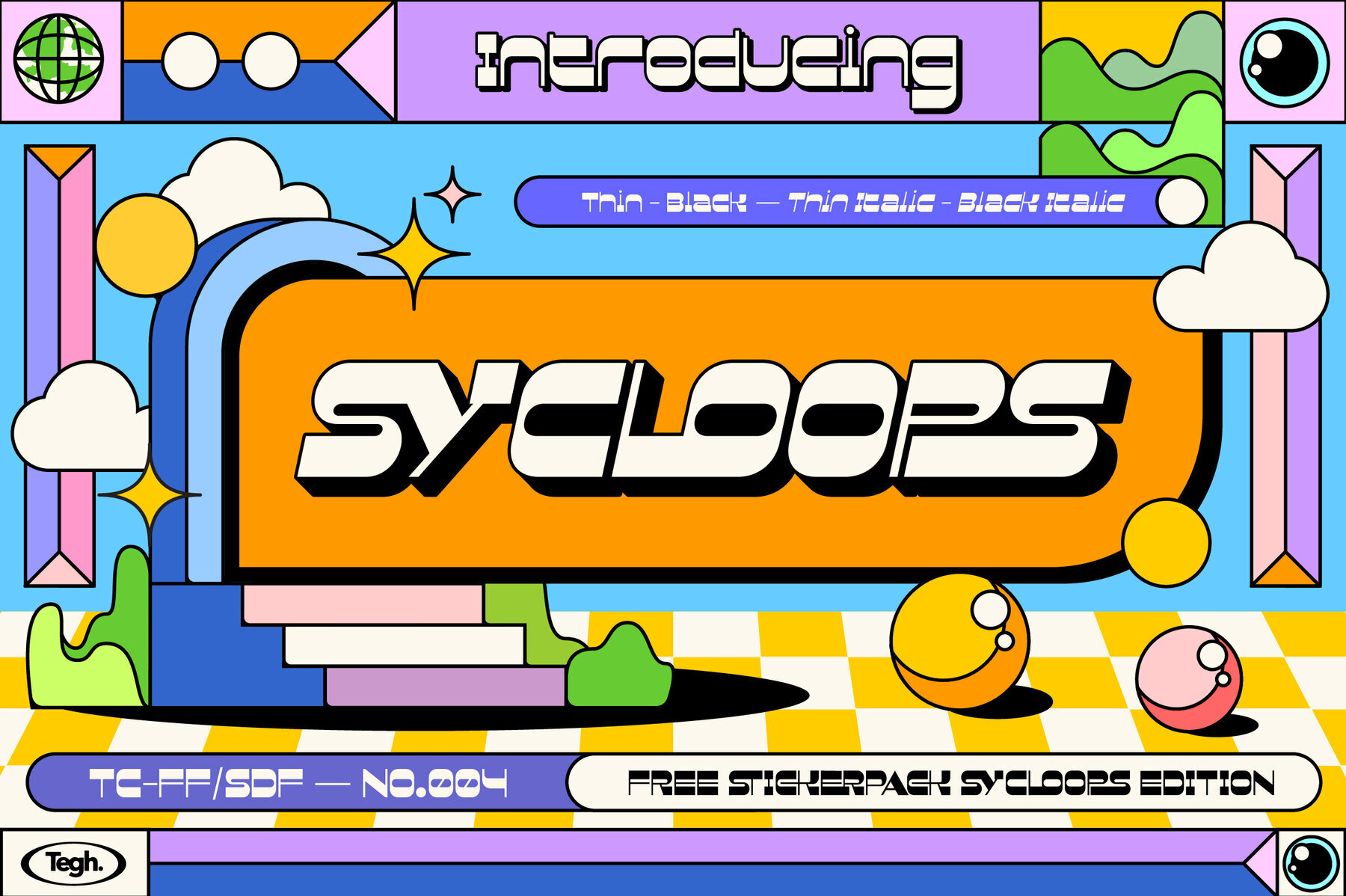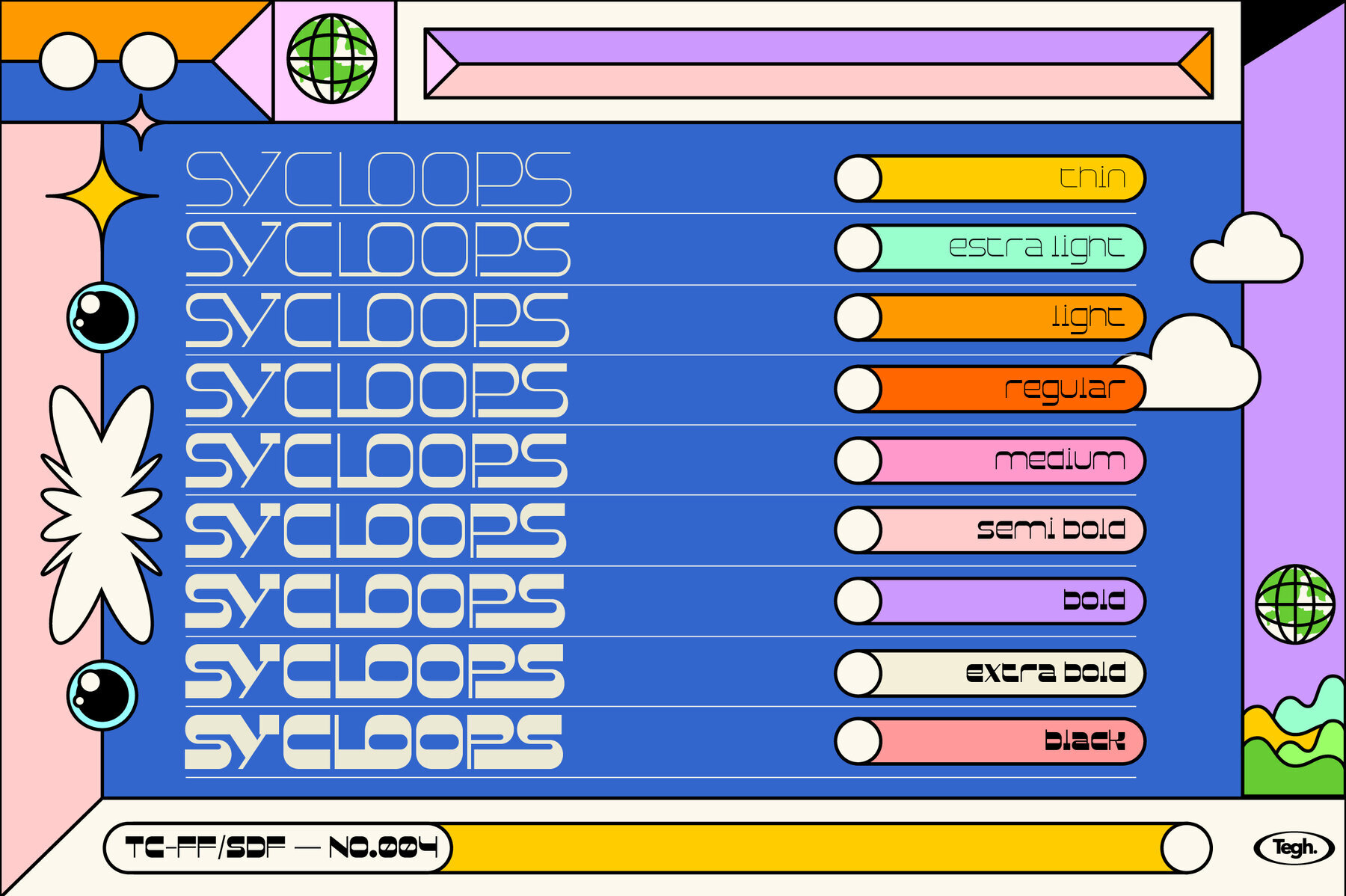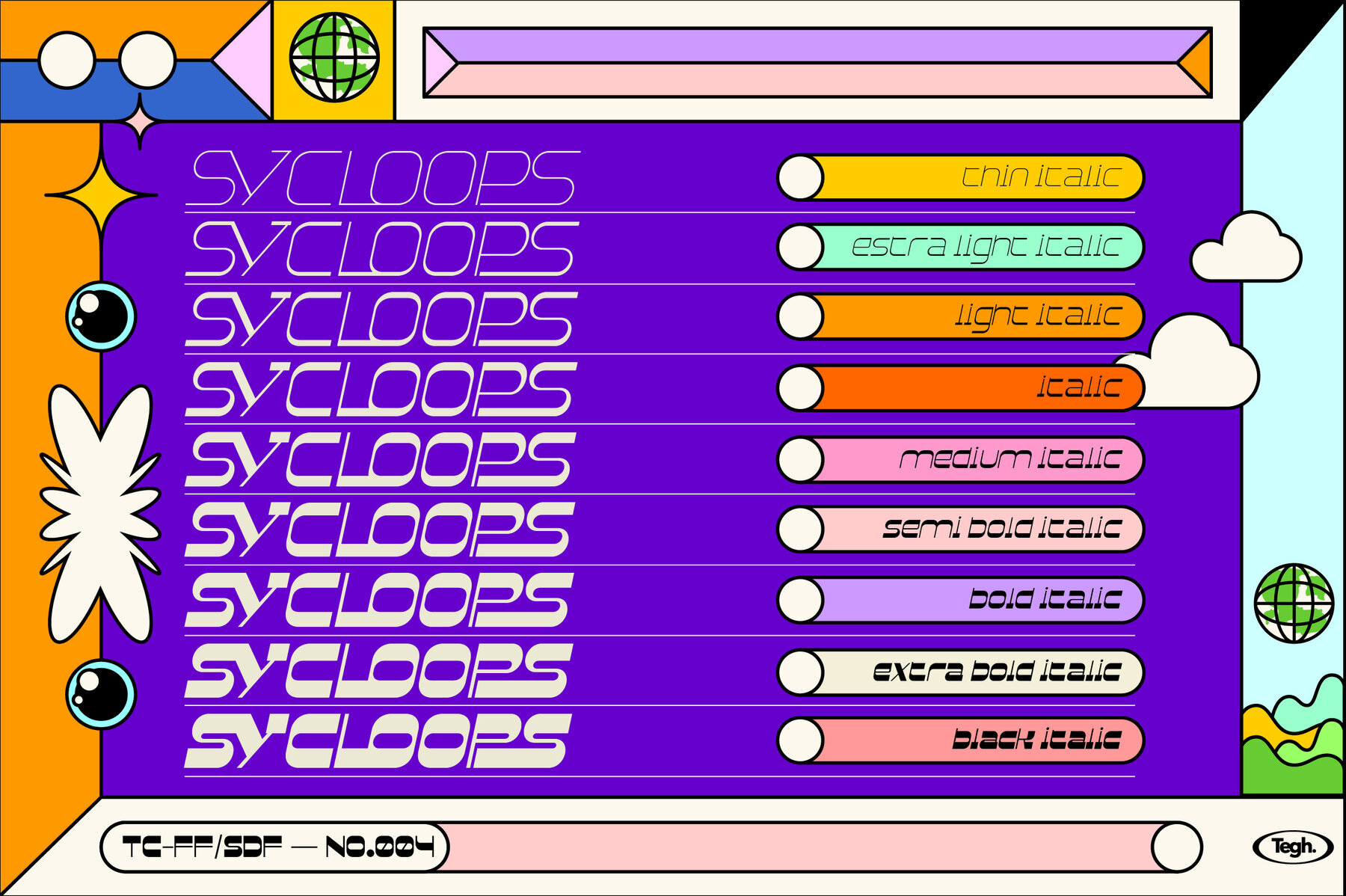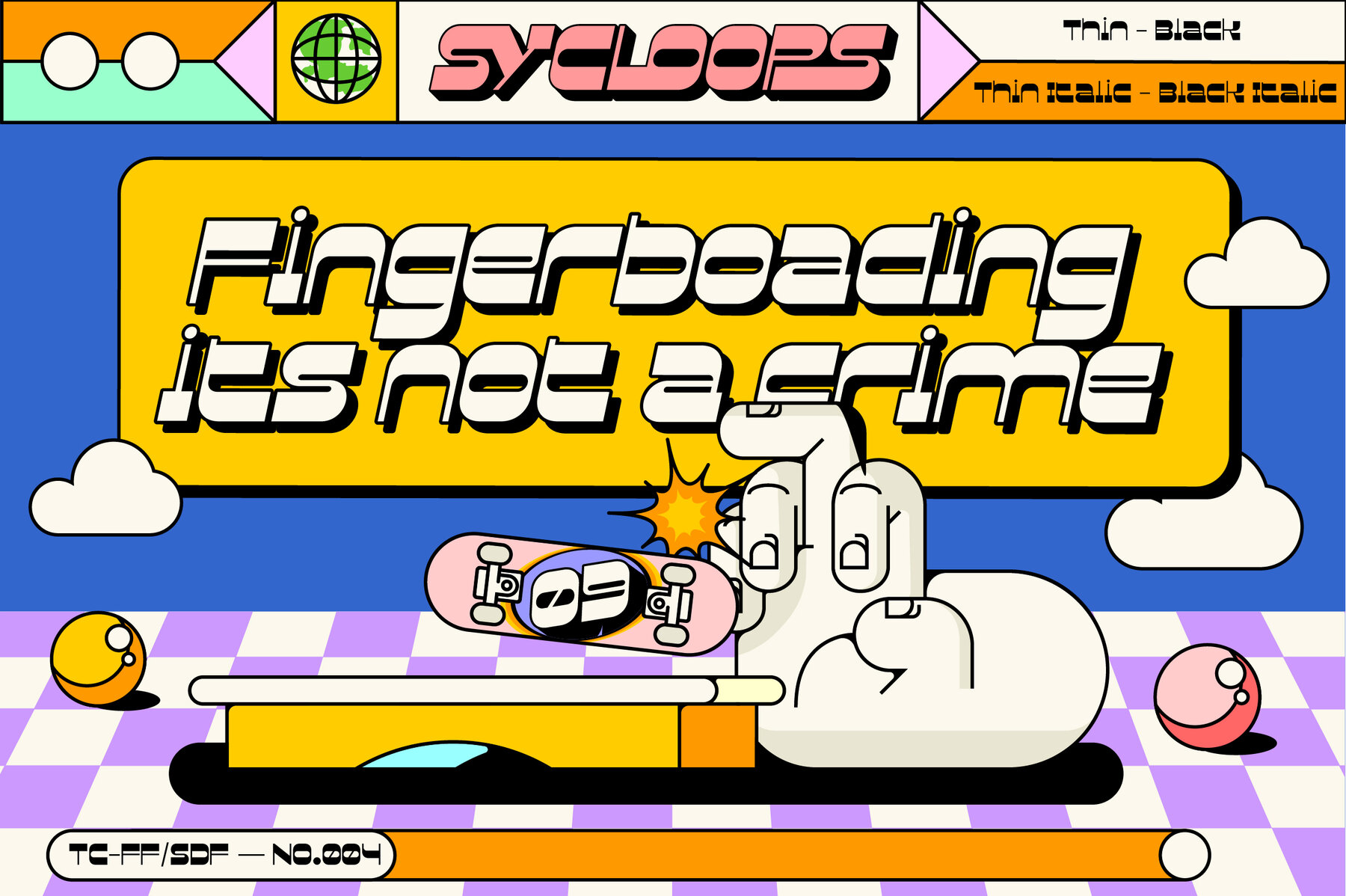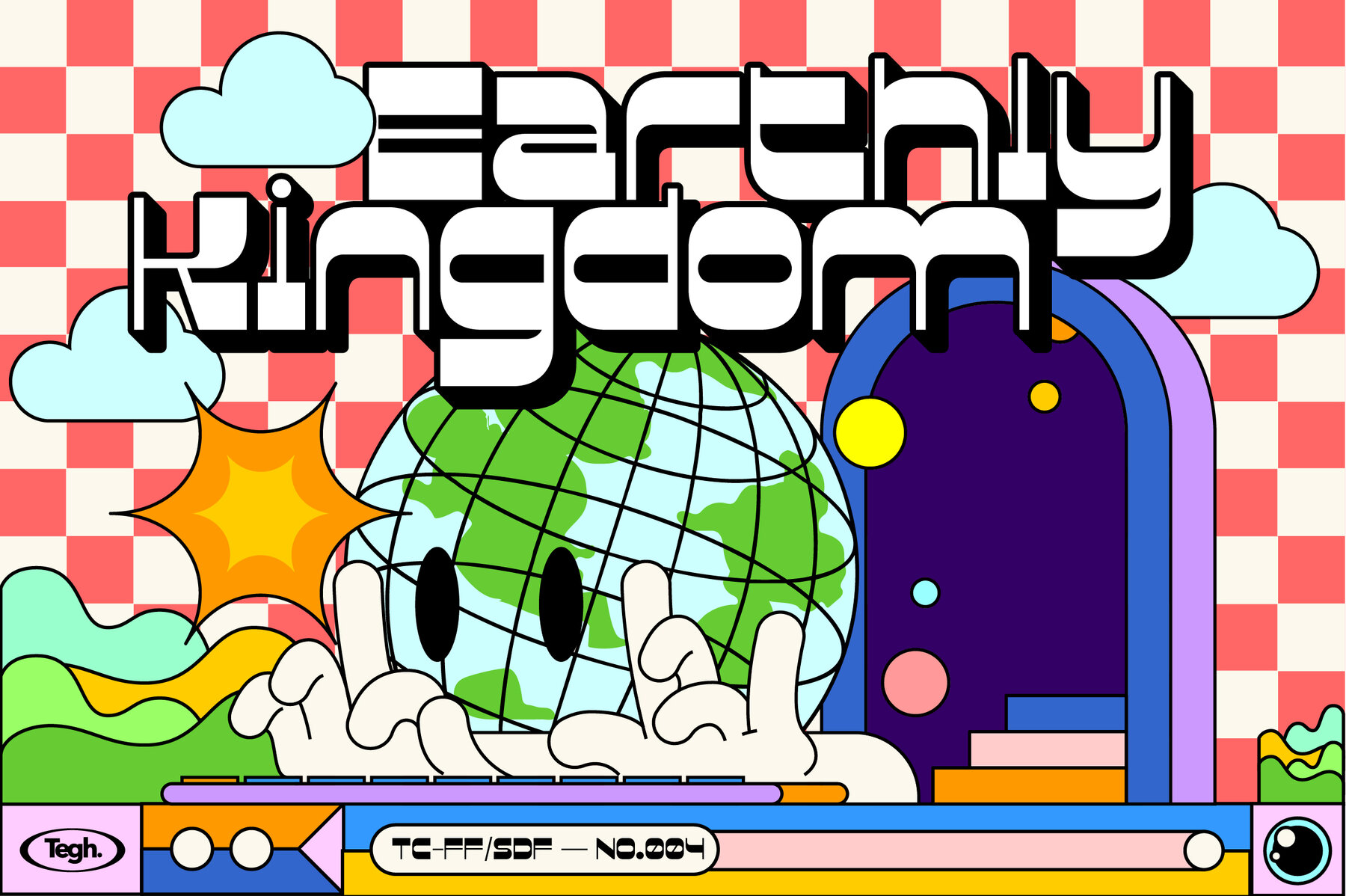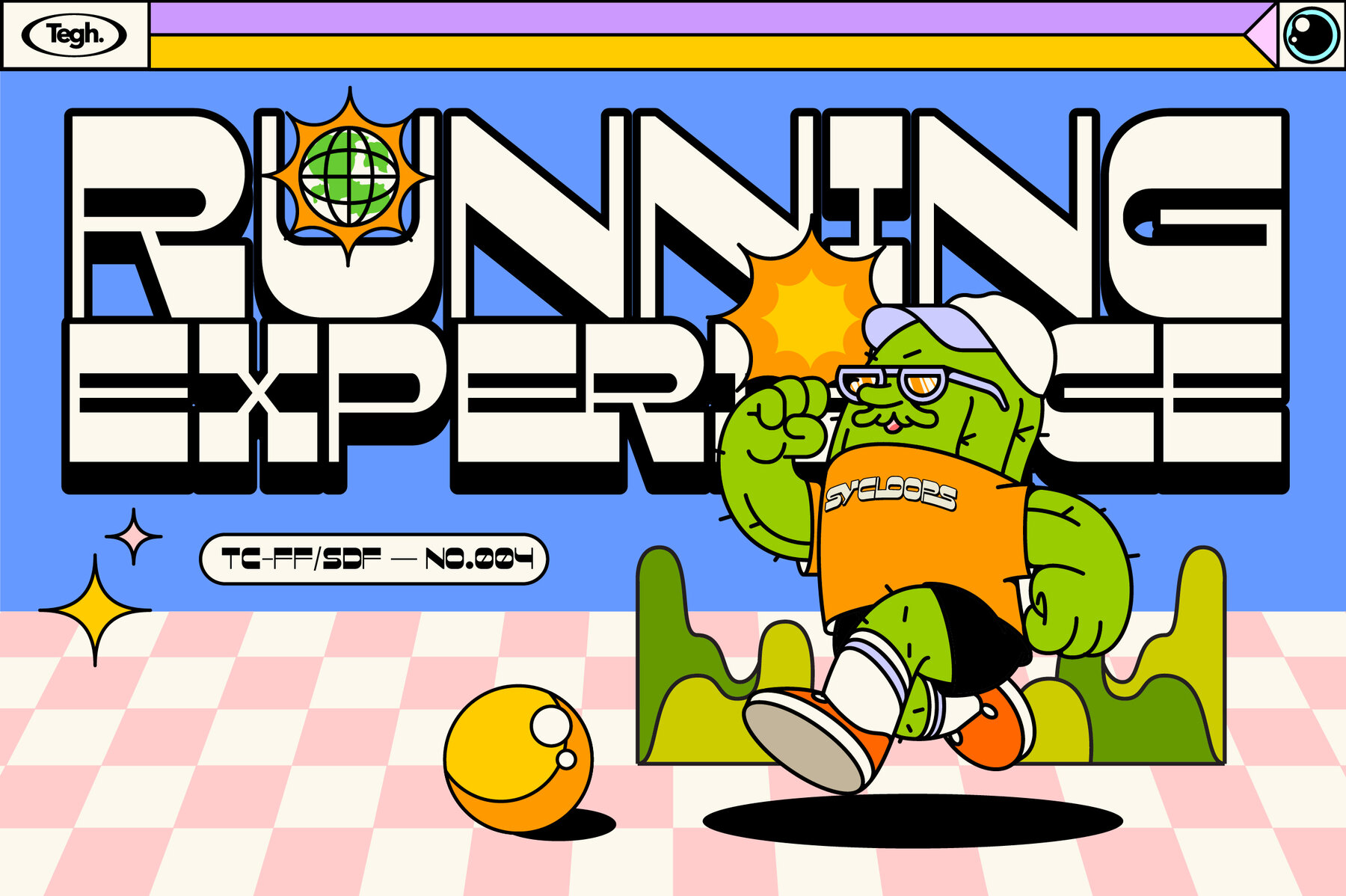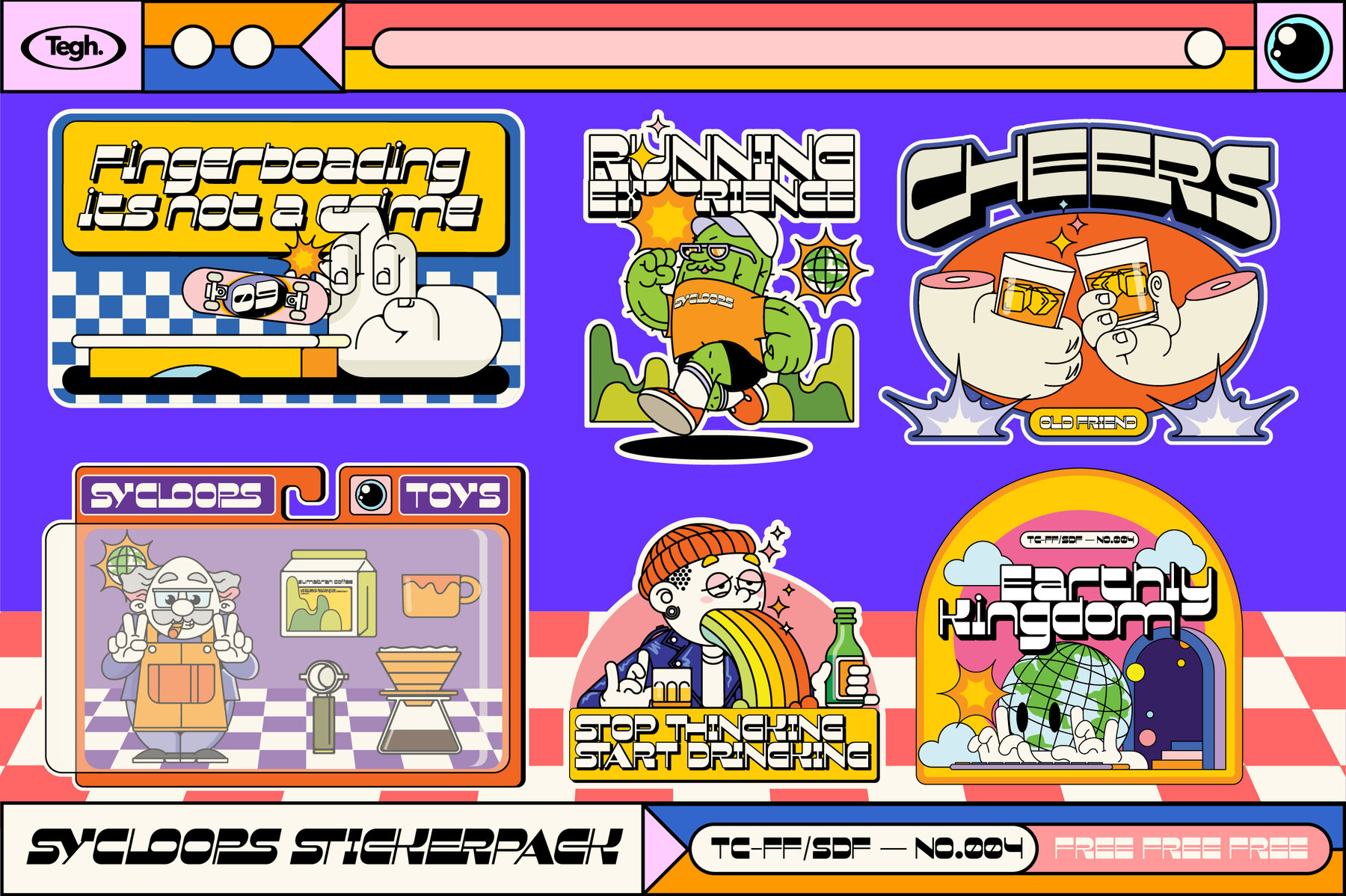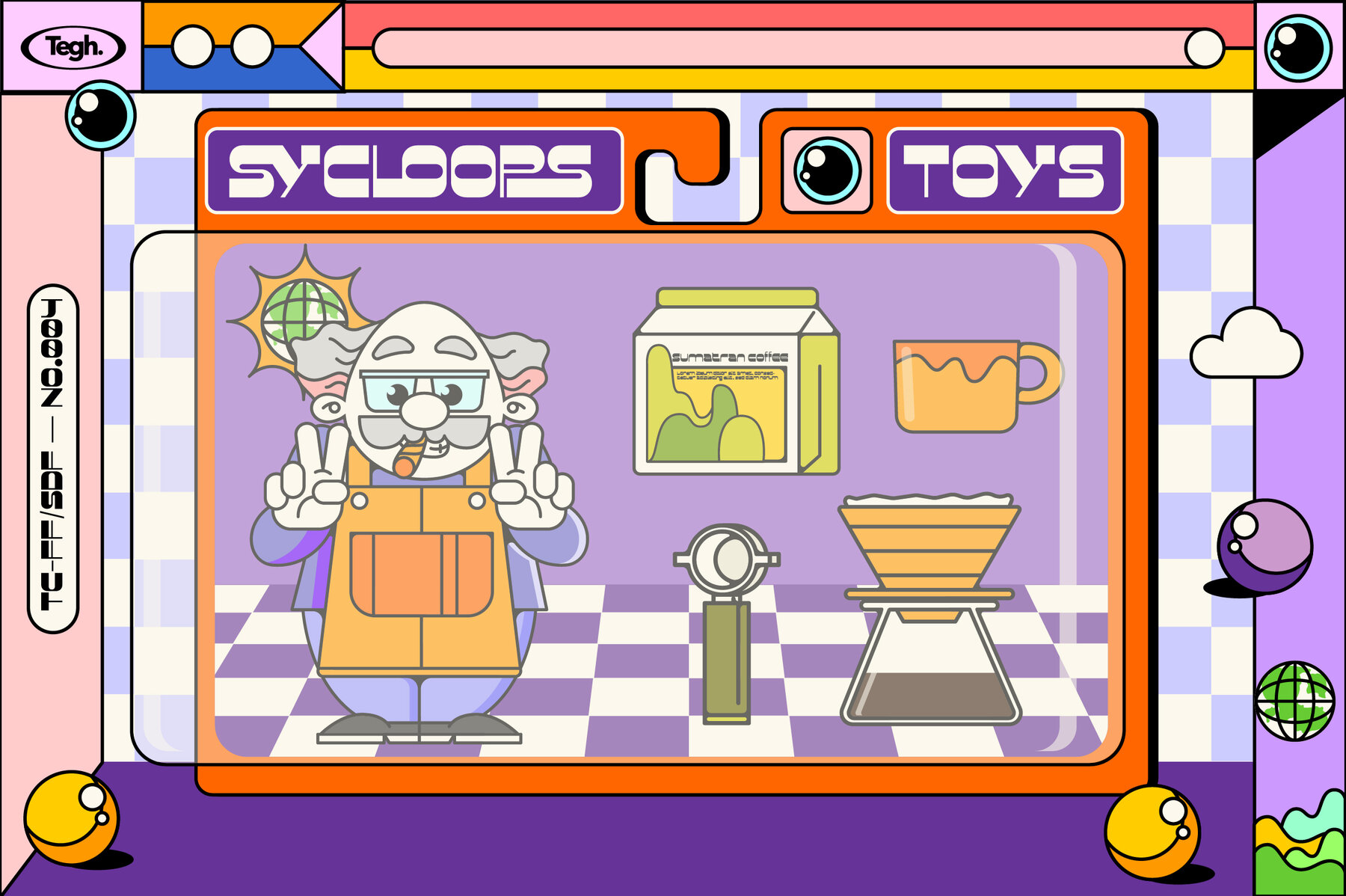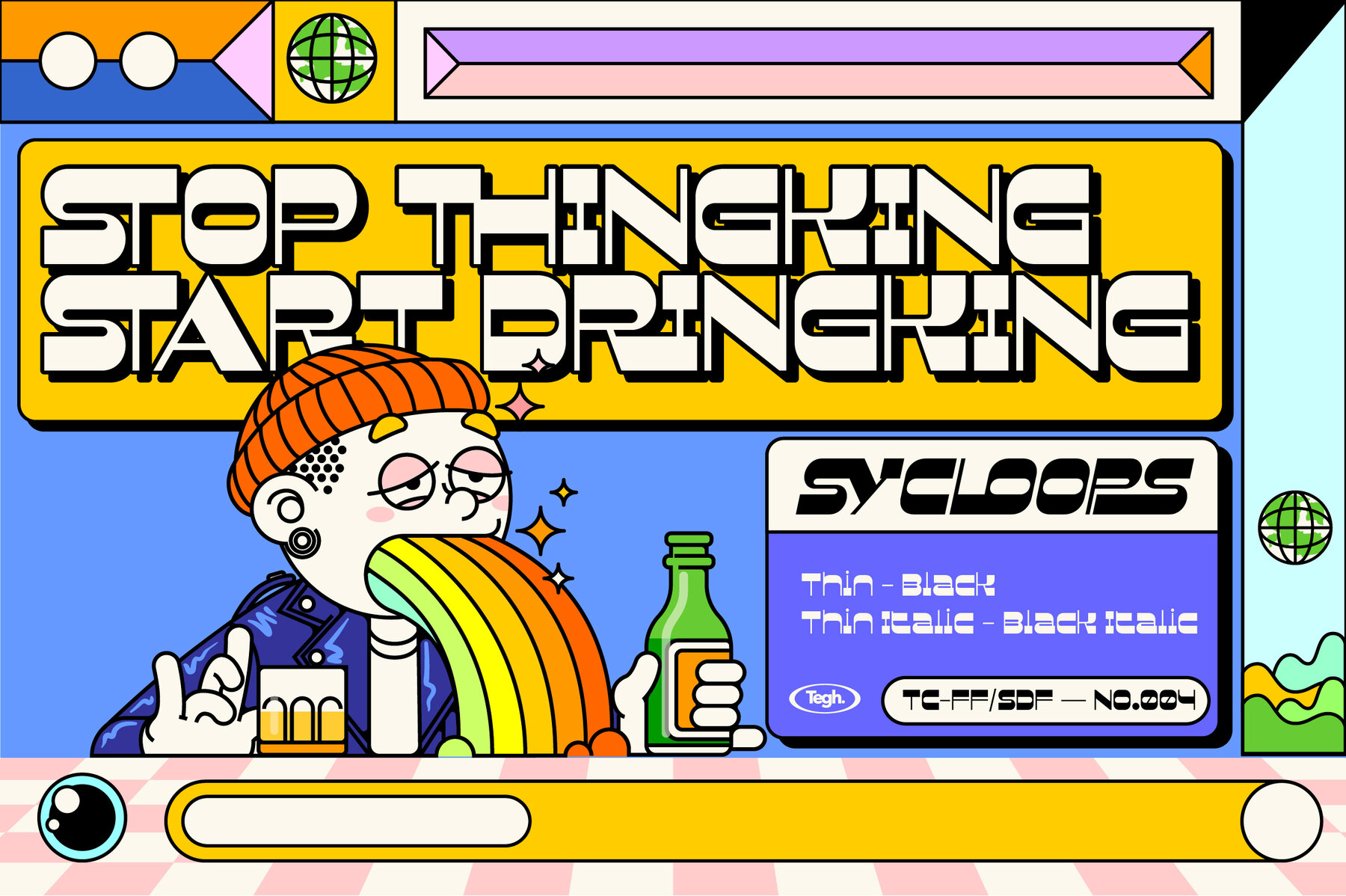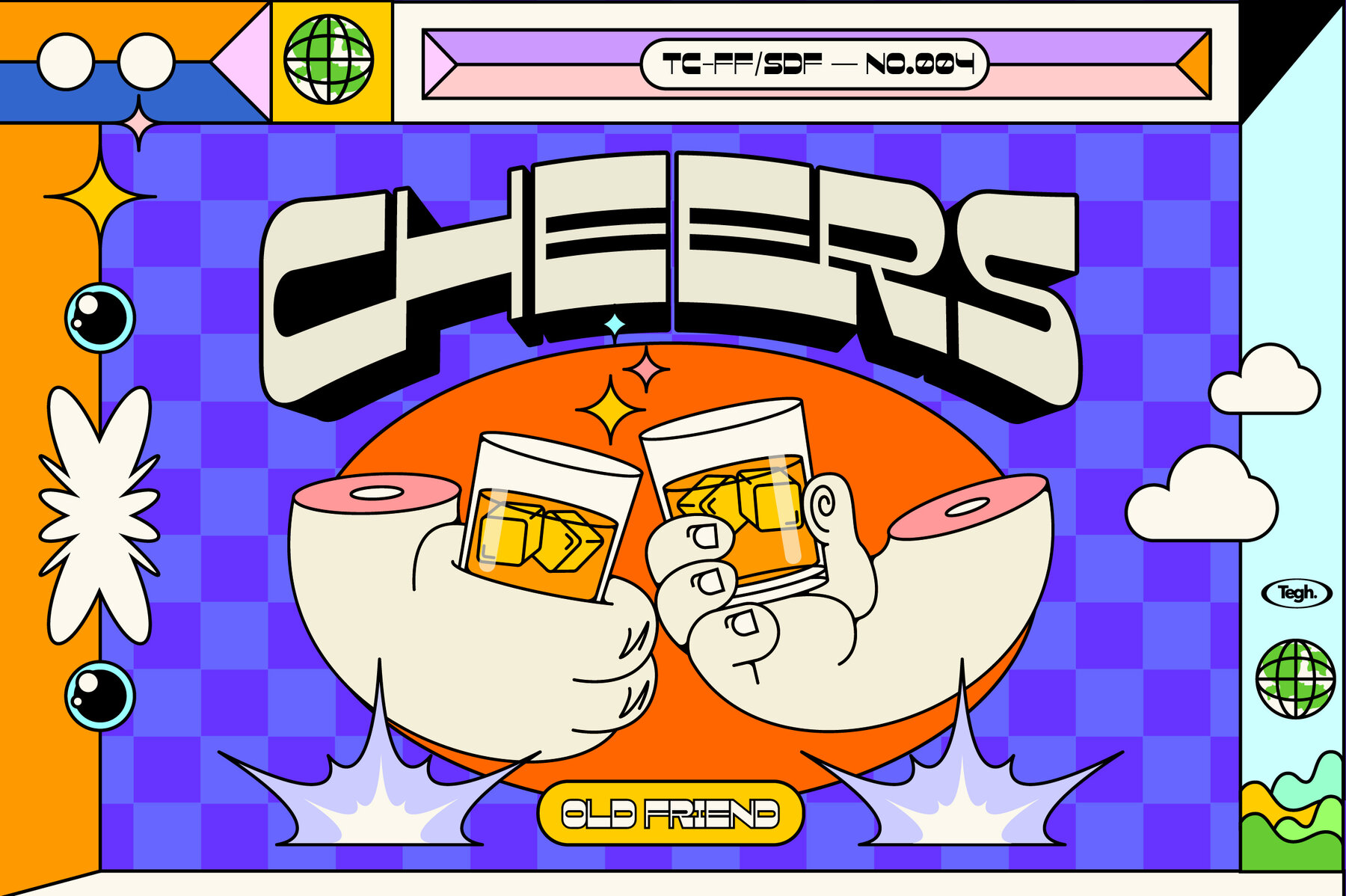
Sycloops Font
Sycloops is crafted for designers seeking seamless creativity across various projects. This display font family caters to your design ambitions, offering a clean aesthetic that enhances diverse visual narratives.Sycloops: Versatile Display Font Family